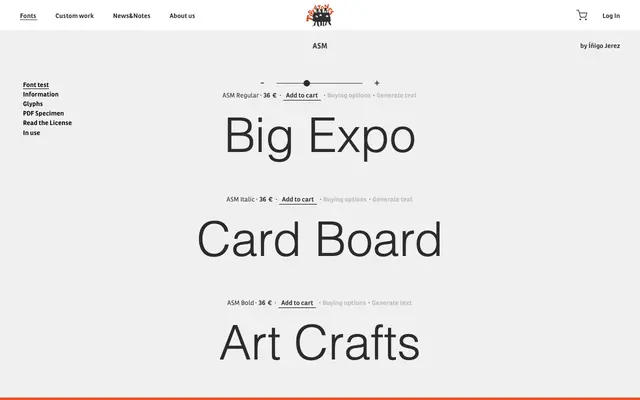
ASM
A two-weight grotesque by Íñigo Jerez, offered in standard and UD variants each with upright and italic cuts.
Eight styles in total: Regular, Italic, Bold and Bold Italic in both the standard ASM family and a UD subfamily. The UD variant likely denotes an upright or alternate design direction, though no further detail is provided on the page. A clean, functional grotesque suited to editorial and display use.
The page offers no explicit classification, but the specimen text and style names suggest a straightforward grotesque sans-serif with upright and italic cuts across regular and bold weights.
ASM UD